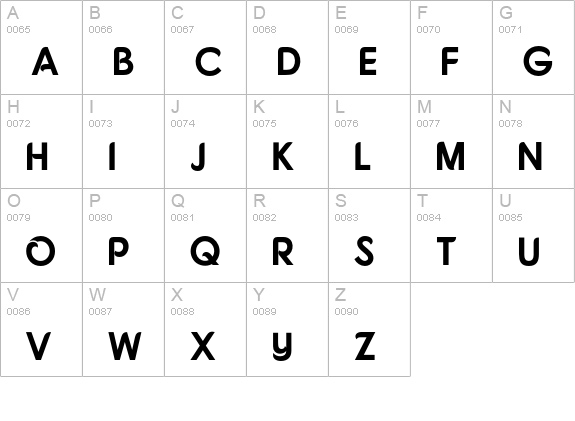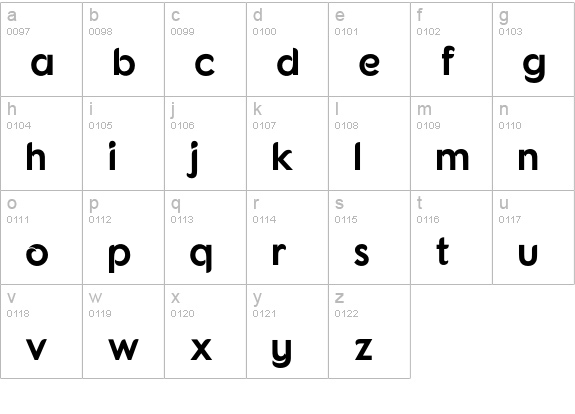
Introducing Fonarto, a beautiful and versatile font that will add a touch of elegance to any design project. Whether you're creating a logo, designing a website, or crafting a stunning invitation, Fonarto is the perfect choice to make your text stand out. With its sleek and modern design, Fonarto effortlessly combines classic sophistication with a contemporary edge. The clean lines and balanced proportions of each letter create a harmonious visual rhythm, resulting in a font that is both visually pleasing and highly legible. But what sets Fonarto apart is not only its stunning aesthetics, but also its accessibility. We believe that great design should be available to everyone, which is why we are thrilled to offer Fonarto as a free font for you to download and use in your own projects. You can easily download Fonarto for free at FontsMarket.com, where you'll find a wide selection of high-quality fonts to suit any design need. Whether you're a professional designer or a hobbyist, FontsMarket.com is your go-to resource for all your typography needs. So why wait? Elevate your designs with the timeless elegance of Fonarto. Download it now for free and let your creativity soar.